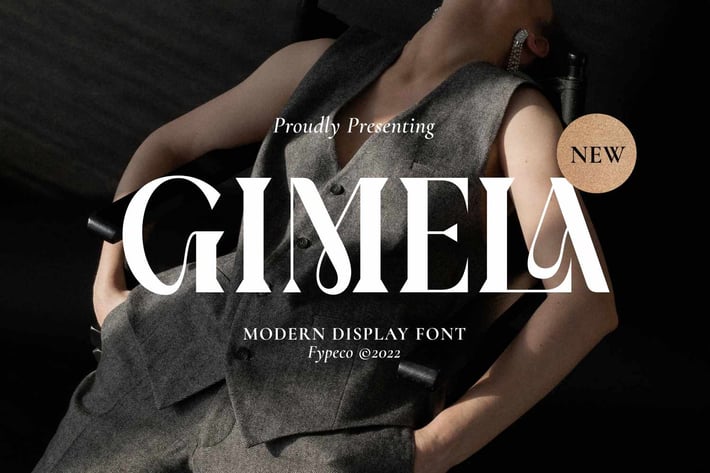
Gimela - Modern Display Font
FypeCo
Gimela is modern display font with alternatives and ligatures. The unique style also make for a stunning logos, quotes, posts, blog posts. branding projects, magazine imagery, wedding invitations, and much more. Gimela comes with multilingual support also.
Font Features
- Alternatives